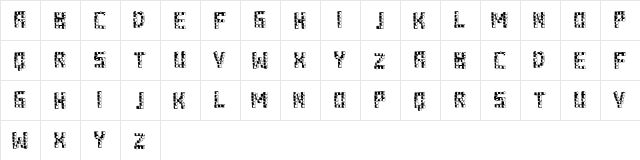
Zucker Illuminated
Design Context for Zucker Typeface
Zucker is a composed and adaptable typeface that performs quietly and consistently across a wide range of design contexts.